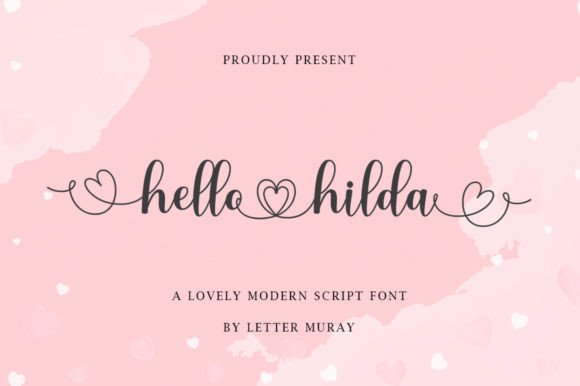
Looking for a font that can add a touch of elegance and sophistication to your projects? Look no further than Hello Hilda Font! This stunning script font is perfect for anyone looking to add a little extra flair to their designs.
Created by the talented designers at Letter Muray, Hello Hilda Font is a true work of art. With its beautiful heart swashes and exquisite calligraphic influences, this font is sure to become a favorite among designers and creatives alike.
What sets Hello Hilda Font apart from other script fonts on the market is its ability to maintain a classic and timeless feel while also feeling contemporary and fresh. Whether you're looking to create a sophisticated logo, design an eye-catching poster, or craft a beautiful wedding invitation, Hello Hilda Font has got you covered.
In addition to its stunning design, Hello Hilda Font is also incredibly versatile and easy to use. Thanks to its PUA encoding, accessing the available glyphs and swashes is a breeze. This means you can spend less time fussing over your design and more time creating something truly unique and beautiful.